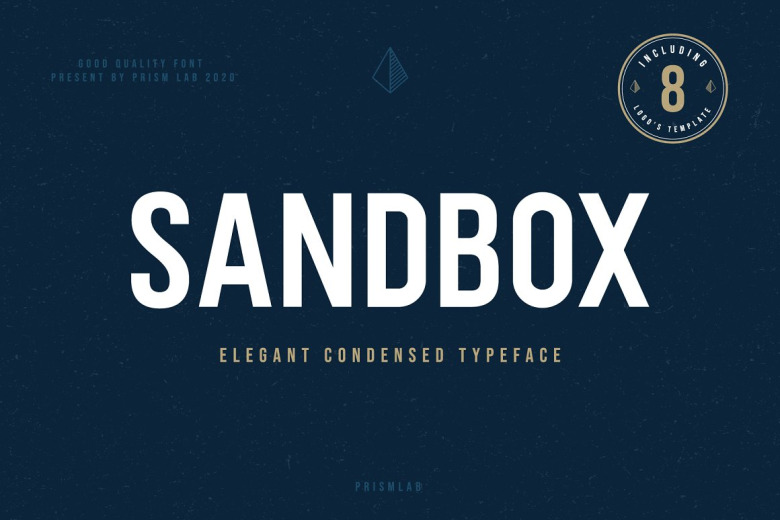
Sandbox Font
Introducing Sandbox Sans Serif Font is Modern sans serif font with beautiful alternate characters and also ligature which makes it easy for you to create a logo for your personal branding and your business beautifully. This font is designed and shared by PrismLAB. It’s A Condensed Sans Typeface Inspired By Strong And Powerful Character. Bold And Sharp With Smooth Textures. Suitable With Your Business And Modern Company.
Sandbox Sans Serif Font